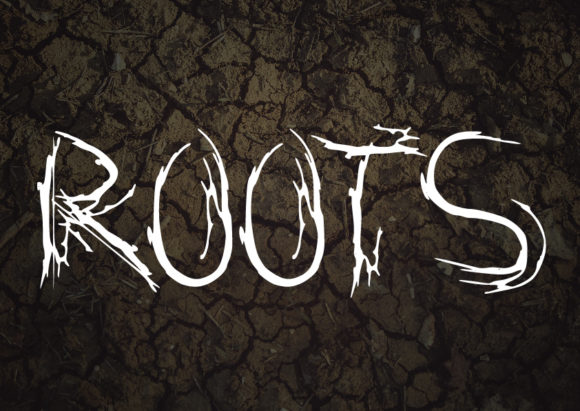
Journey into the enchanting realm of typography with Roots Font, a spellbinding display font that casts a mystical aura on your designs. Inspired by the eerie charm of Halloween, Roots Font conjures a captivating aesthetic, ready to weave its magic into your creative endeavors.
Step into a world of spooktacular artistry with Roots Font, a font family that oozes character and personality. Its distinct letterforms dance and twirl, evoking a sense of enchantment and intrigue that will leave your audience spellbound. Whether you're designing captivating posters, spine-tingling invitations, or haunting social media graphics, Roots Font possesses the power to transform your words into works of art.
Crafted with meticulous attention to detail, Roots Font boasts a bewitching display style that captivates and mesmerizes. Its intricate lines and hauntingly beautiful curves create a visual symphony that commands attention. From the twisted strokes of its letters to the mischievous charm of its glyphs, Roots Font possesses an undeniable allure that will make your designs stand out in a sea of mediocrity.
Unleash the dark magic of Roots Font and watch as your designs take on a life of their own. Its eerie elegance lends itself perfectly to a myriad of projects, from spine-chilling Halloween flyers to mysterious invitations that hint at secrets yet to be revealed. Let Roots Font cast its spell on your audience, captivating their imaginations and leaving them spellbound by your creative genius.
Embrace the hauntingly beautiful world of Roots Font, a display font that conjures a captivating aesthetic perfect for your Halloween projects. Its spooky charm and enchanting allure will cast a spell on your audience, leaving them spellbound by your designs. Experience the magic of Roots Font today and unleash your creativity like never before.